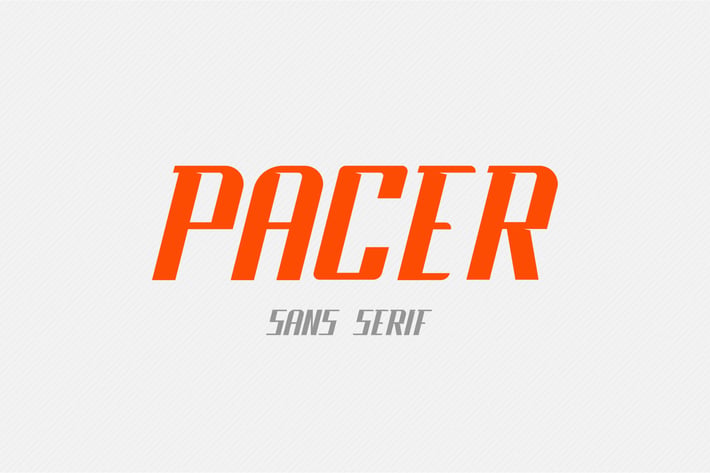
Pacer - Sports Sans Serif Font
Pacer font was created with runners and sports in mind. A slanted all caps font for a dynamic look and feel. Great for sports, esports, apparel, promo, and large headlines.
All Uppercase font